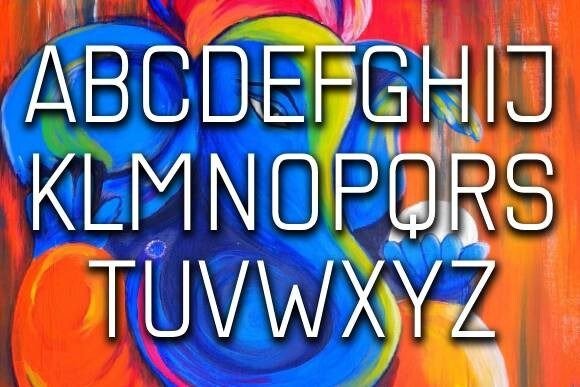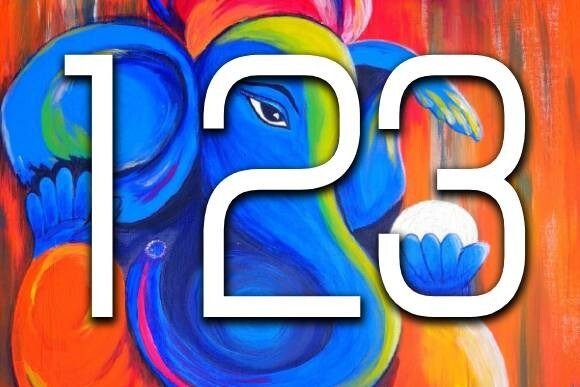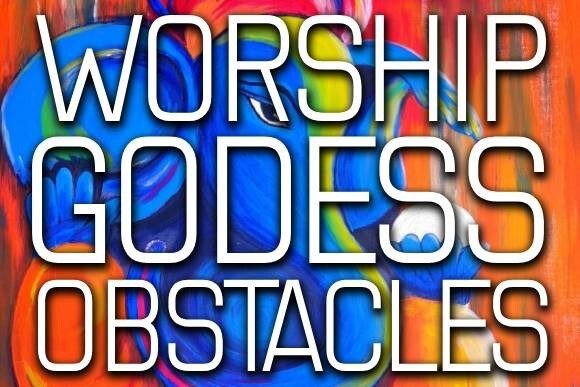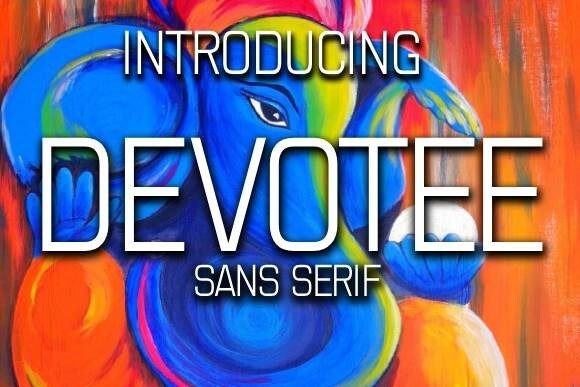
Introducing Devotee Font: Elevate Your Designs with Elegance
In the world of design, typography plays a crucial role in conveying messages, expressing creativity, and capturing attention. For designers and crafters seeking a font that exudes elegance and sophistication, look no further than Devotee Font. This stunning Sans Serif font is poised to revolutionize your designs, making them truly unforgettable.
The Essence of Devotee Font
Devotee Font is an exquisite, modern Sans Serif font, carefully crafted to bring a touch of refinement to your visual projects. Its clean lines, precise curves, and balanced proportions make it an ideal choice for a wide range of applications, from posters and flyers to t-shirts and digital media. With Devotee Font, you can effortlessly create designs that are both aesthetically pleasing and highly effective.
Key Features of Devotee Font
• Elegant Design: Devotee Font boasts a sleek, contemporary design that instantly elevates your creations, making them stand out in a crowded design landscape.
• Versatility: This versatile font is suitable for various design projects, including posters, flyers, t-shirts, logos, and more.
• Easy to Read: The clear, Sans Serif design ensures excellent readability, making it perfect for both digital and print applications.
• Customizable: With its comprehensive set of characters and alternate styles, Devotee Font offers endless possibilities for creative experimentation.
Design Applications for Devotee Font
Devotee Font’s versatility knows no bounds. Here are some design applications where this elegant font truly shines:
• Posters: Create eye-catching posters for events, promotions, or announcements that demand attention.
• Flyers: Design engaging flyers for businesses, services, or products that need to make a lasting impression.
• T-Shirts: Add a touch of sophistication to your apparel designs, making them perfect for fashion brands or merchandise.
• Digital Media: Use Devotee Font in your social media graphics, blog headers, or website content to maintain a consistent, high-end visual identity.
By incorporating Devotee Font into your design workflow, you’ll enjoy numerous benefits, including:
• Time-Saving: With its exceptional readability and aesthetic appeal, Devotee Font saves you time and effort in selecting and pairing fonts.
• Consistency: Establish a cohesive visual brand identity across various platforms and materials.
• Creativity Boost: Unlock new design possibilities with Devotee Font’s extensive character set and flexible styling options.
In conclusion, Devotee Font is a game-changing Sans Serif font that can instantly elevate your designs, making them more sophisticated, engaging, and memorable. Whether you’re a designer, crafter, or DIY enthusiast, this elegant font is sure to become an indispensable part of your creative toolkit. So why wait? Explore the limitless possibilities of Devotee Font today and take your designs to new heights!